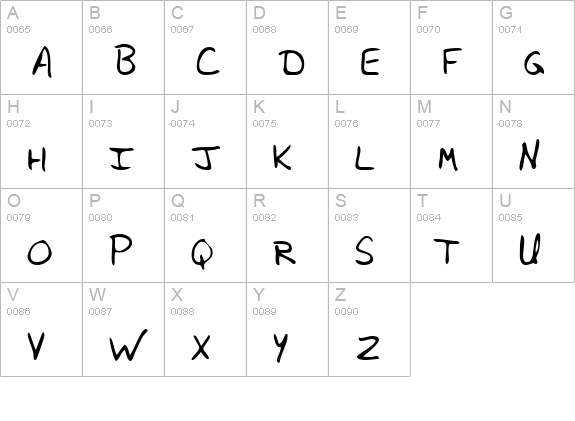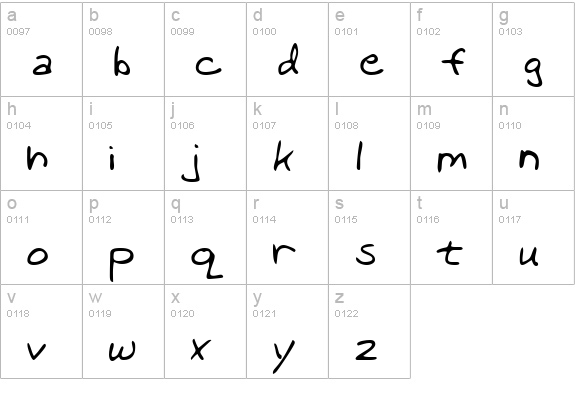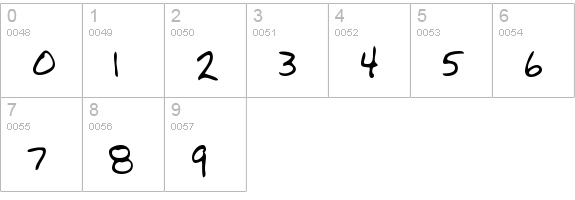
JanicesHand Regular Font Details
JanicesHand Regular is the standard, neutral variant in the JanicesHand typeface family \xE2\x80\x94 well suited to general body text, paragraphs, and standard typographic work.
JanicesHand Regular font is a delightful and charming typeface that will add a touch of whimsy and personality to any project. With its slightly uneven strokes and handwritten style, this font exudes a sense of warmth and friendliness. Perfect for greeting cards, invitations, logos, and more, JanicesHand Regular font is versatile and can be used for both personal and commercial projects. Its unique and organic appearance will make your designs stand out and capture the attention of your audience. One of the best things about JanicesHand Regular font is that it is free! That's right, you can freely download this font at FontsMarket.com. Enjoy the freedom of using this beautiful font in your creative endeavors without any cost. Whether you're a professional designer or just looking to add a personal touch to your projects, JanicesHand Regular font is a must-have. Its legibility and playful nature make it a great choice for various applications. So don't miss out on this fantastic opportunity to enhance your designs with a free and captivating font. Download JanicesHand Regular font today at FontsMarket.com and unleash your creativity with this amazing typeface.